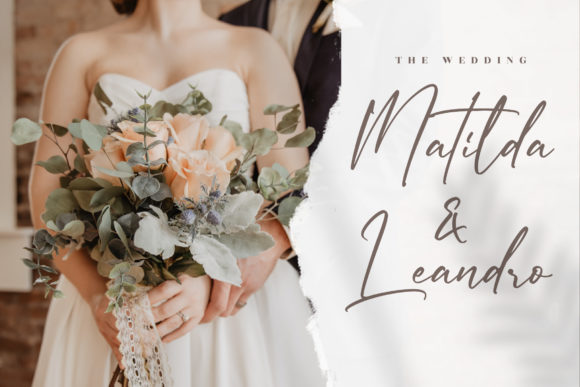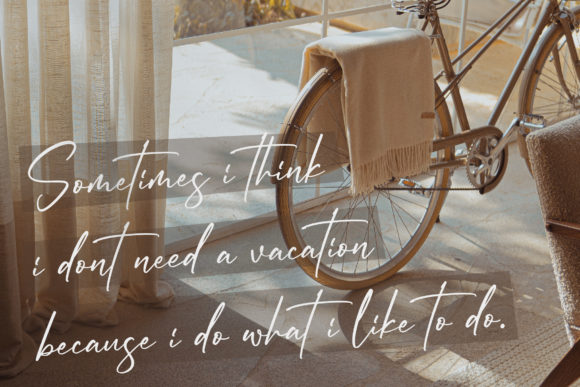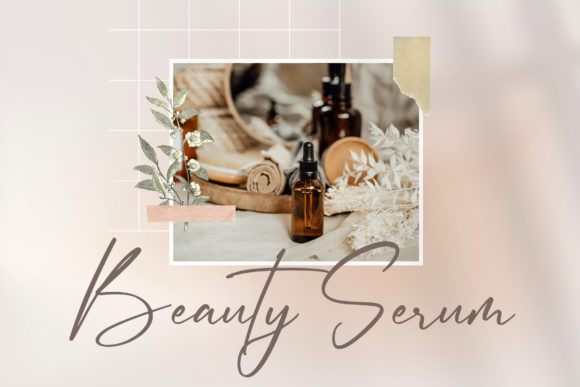
Introduction to Andershon Magnolia Font
Andershon Magnolia is an exquisite handwritten font, masterfully designed to become a true favorite.
Why Choose Andershon Magnolia Font?
Andershon Magnolia Font offers exceptional quality and versatility, making it a valuable addition to your design toolkit. Whether you’re creating for personal projects or commercial use, Andershon Magnolia Font delivers professional results.